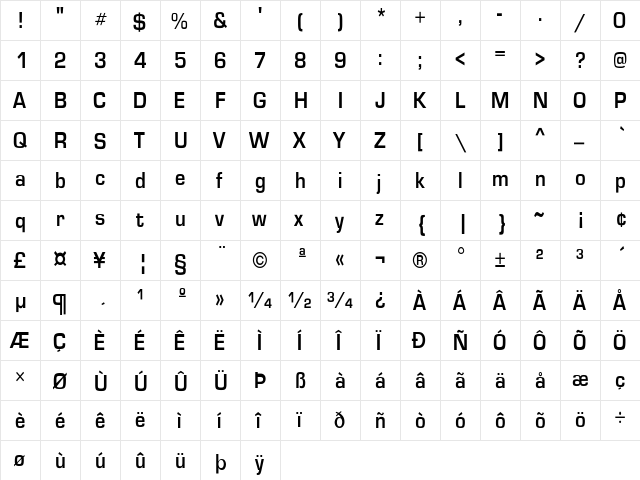
EurostileCnd-Bold Regular
Design Context for EurostileCnd-Bold Typeface
EurostileCnd-Bold offers clean, dependable letterforms without strong stylistic allegiance, making it a practical choice for designers who need flexibility. The heavy weight commands attention and anchors typographic hierarchies.